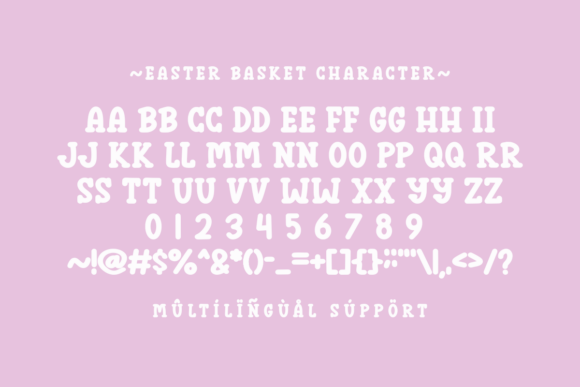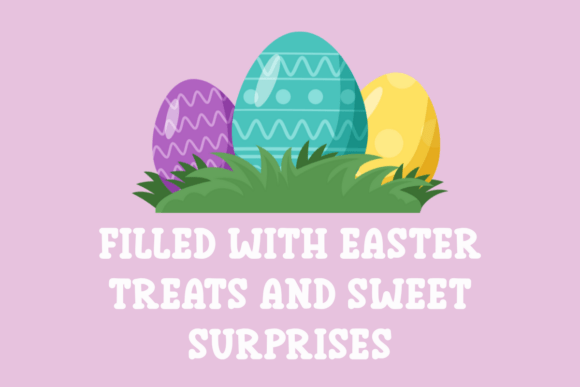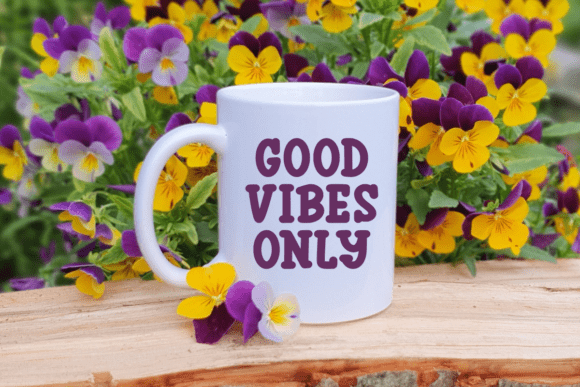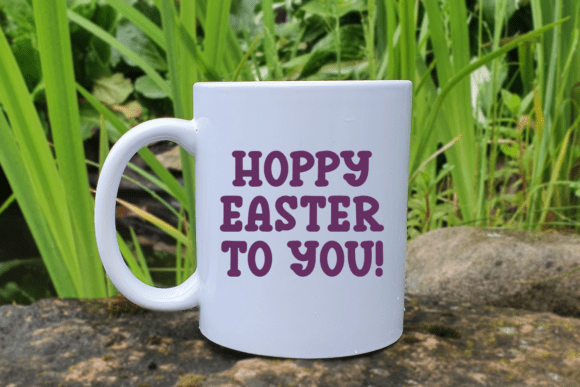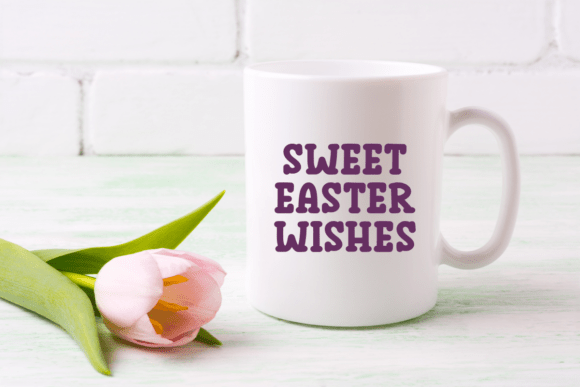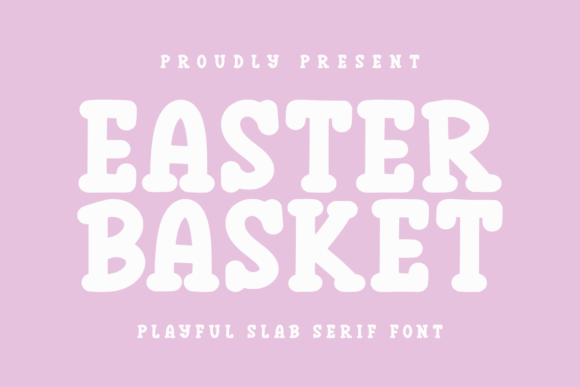
Easter Basket Font: A Fun and Clean Slab Serif Font for Your Creative Projects
Are you looking for a unique and eye-catching font to add to your design projects? Look no further than the Easter Basket font! This fun, clean, and well-designed slab serif font is perfect for any project, from Easter-themed designs to everyday creative endeavors. In this article, we’ll take a closer look at the Easter Basket font, its features, and how you can use it to create stunning designs.
What is Easter Basket Font?
Easter Basket font is a slab serif font that features a unique and playful design. Its clean lines and bold strokes make it perfect for headlines, titles, and other design elements that need to stand out. The font is highly versatile and can be used for a wide range of projects, from Easter-themed designs to posters, flyers, and social media graphics.
Key Features of Easter Basket Font
So, what makes Easter Basket font so special? Here are some of its key features:
- Fun and playful design: Easter Basket font features a unique and playful design that is sure to add a touch of whimsy to your designs.
- Clean lines and bold strokes: The font’s clean lines and bold strokes make it perfect for headlines, titles, and other design elements that need to stand out.
- Highly versatile: Easter Basket font can be used for a wide range of projects, from Easter-themed designs to posters, flyers, and social media graphics.
- Easy to read: Despite its playful design, Easter Basket font is easy to read, making it perfect for body text and other design elements.
How to Use Easter Basket Font
Now that we’ve covered the key features of Easter Basket font, let’s talk about how to use it. Here are some ideas to get you started:
- Easter-themed designs: Easter Basket font is perfect for Easter-themed designs, such as Easter egg hunt posters, Easter sale signs, and Easter greeting cards.
- Combine with other fonts: Easter Basket font pairs well with other fonts, such as scripts and sans serifs. Try combining it with a script font for a unique and eye-catching design.
- Use for headlines and titles: Easter Basket font is perfect for headlines and titles, where its bold strokes and clean lines can really make an impact.
- Use for body text: Despite its playful design, Easter Basket font is easy to read, making it perfect for body text and other design elements.
Tips for Pairing Easter Basket Font with Other Fonts
Pairing Easter Basket font with other fonts can add an extra layer of interest and creativity to your designs. Here are some tips for pairing Easter Basket font with other fonts:
- Scripts: Pair Easter Basket font with a script font, such as Pacifico or Great Vibes, for a unique and eye-catching design.
- Sans serifs: Pair Easter Basket font with a sans serif font, such as Open Sans or Lato, for a clean and modern design.
- Experiment with font sizes: Experiment with different font sizes to create visual interest and hierarchy in your designs.
In conclusion, Easter Basket font is a fun, clean, and well-designed slab serif font that is perfect for any project. Its unique and playful design makes it perfect for Easter-themed designs, while its clean lines and bold strokes make it perfect for headlines and titles. With its high versatility and ease of use, Easter Basket font is a great addition to any designer’s toolkit. So why not give it a try and see what amazing designs you can create?